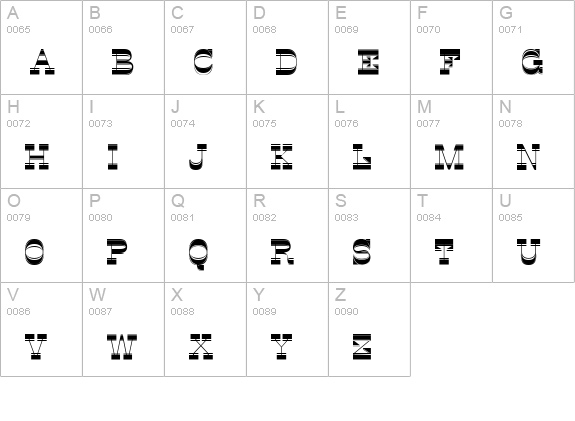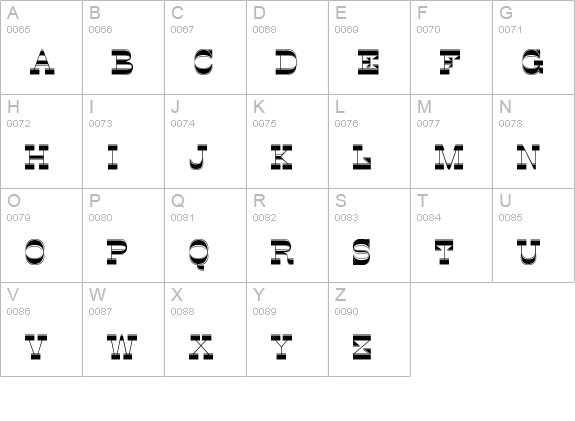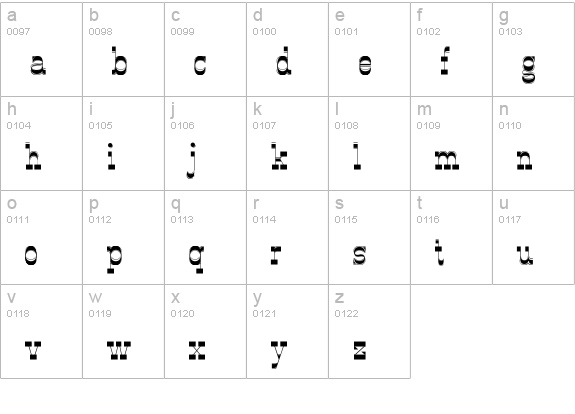
OK Corral Lined Font Details
OK Corral Lined font is a charming and rustic typeface that evokes the spirit of the Old West. With its hand-drawn appearance and rustic edges, this font is perfect for creating designs that need a touch of vintage flair. The lined version adds an extra layer of character and authenticity to your projects. Best of all, OK Corral Lined font is available for free download at FontsMarket.com. Whether you're working on a poster, logo, or any other design project, this font will add a unique and eye-catching element to your work. Embrace the western vibe and add a touch of nostalgia to your designs with OK Corral Lined font.